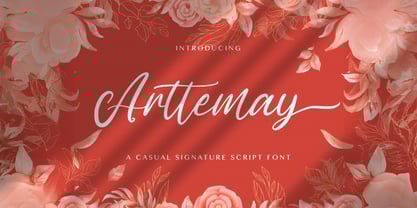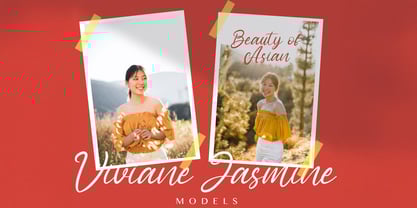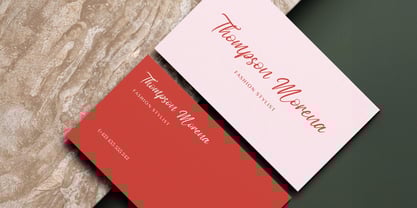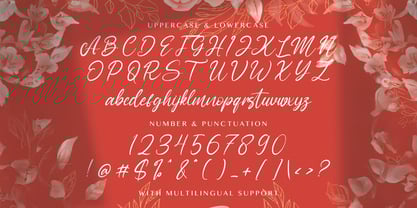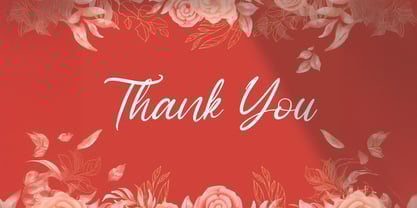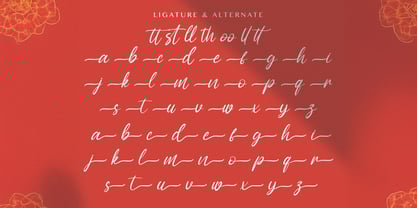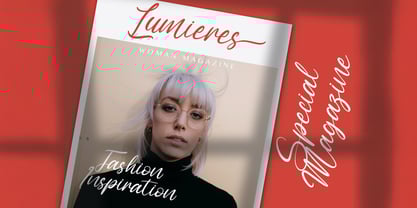
Die Schriftfamilie Arttemay wurde von Virgiawan Listanto entworfen und von Stringlabs Creative Studio veröffentlicht. Arttemay enthält 1 Stile.
Arttemay is a stylish handwritten font with a natural, flowing rhythm and a touch of modern elegance. Its smooth curves and effortless strokes make it perfect for designs that need a personal, graceful feel without losing a sense of professionalism.
Designer: Virgiawan Listanto
Herausgeber: Stringlabs Creative Studio
Foundry: Stringlabs Creative Studio